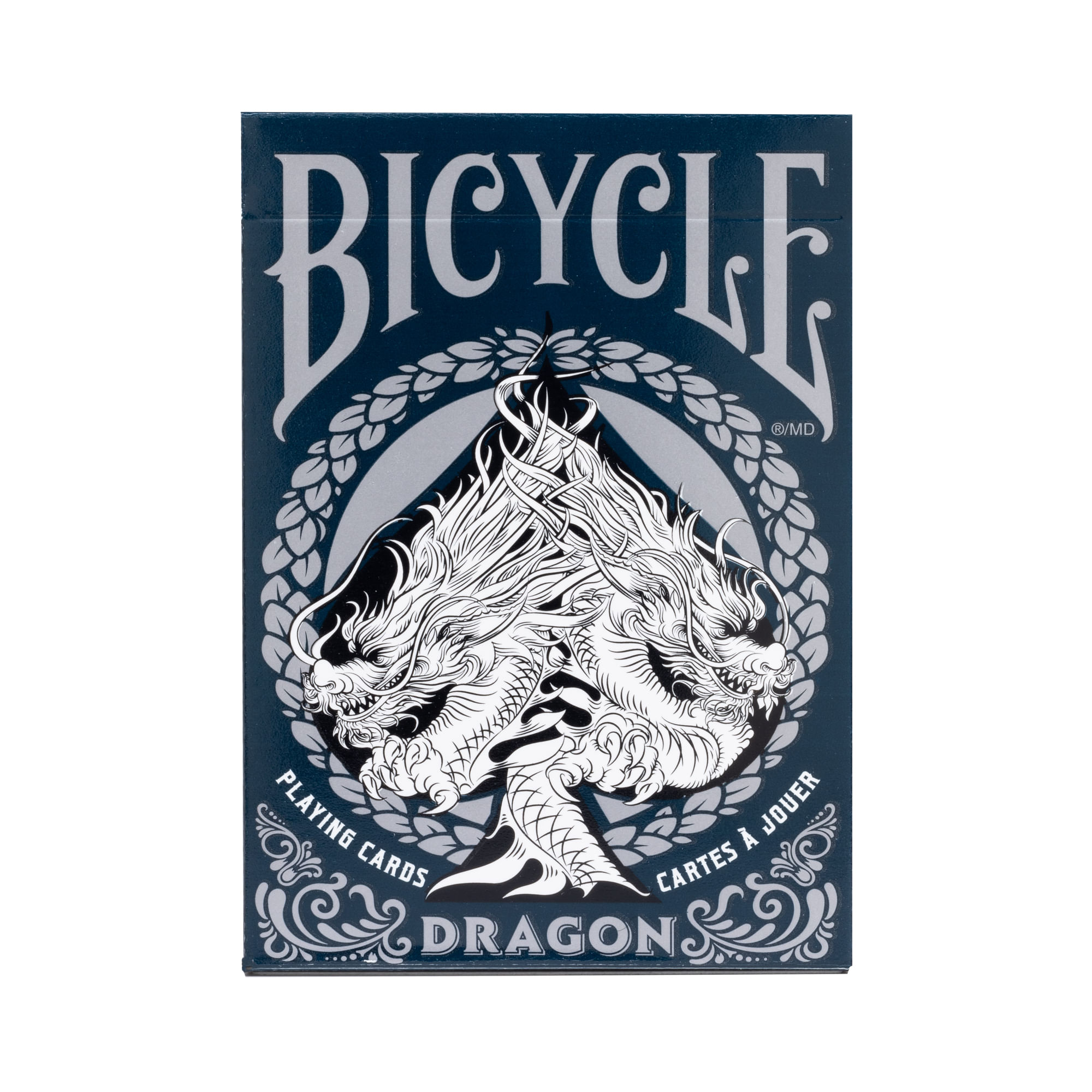
Bicycle Playing Card Font
Bicycle Playing Card Font - Came across a neat font based on the characters found on standard bicycle. Card characters, as the name suggests, was derived from the characters on standard. The words playing cards looks like gill sans medium scaled to be more condensed. Card characters resembles the familiar rounded font used on bicycle brand playing cards.